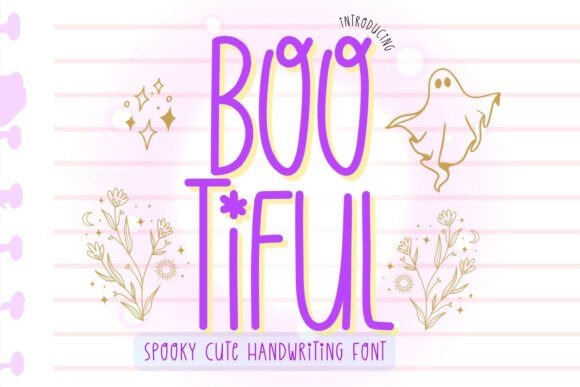
Unleash Your Spooky Creativity with Bootiful Font
Have you ever been working on a creative project, pouring your heart and soul into it, only to feel like something’s missing? Maybe you’re designing a Halloween invitation, crafting a digital journal page, or even planning a spooky-themed party. Whatever the project, I’m sure you’ve wished for the perfect font to bring it all together.
Enter Bootiful Font – a gorgeous, handwritten font that’s as elegant as it is spooky. This font is designed to add a touch of whimsy and charm to your creations, making it perfect for a wide range of projects, from Halloween decorations to digital planners and scrapbooking. With its tall, graceful letters and multilingual support, Bootiful Font is a must-have for crafters, teachers, and small business owners looking to add a little extra magic to their designs.
Bootiful Font Key Features
- Unique Characteristics: Bootiful Font features a unique blend of modern and vintage elements, making it perfect for creating a distinctive visual identity.
Bootiful Font Review
I recently had the chance to work with the “Bootiful Font” and I must say it’s a mixed bag. ✨ Here are the things that work well:
- The font is highly customizable, with a wide range of styles and sizes available.
- It’s incredibly easy to use, even for designers who are new to typography.
- The font is highly legible, making it perfect for body text and other content-heavy applications.
- The font also includes a range of international characters and symbols, making it a great choice for global projects.
However, there are also some limitations to consider: ⚠️
- The font may not be as stylish or attention-grabbing as some other options on the market.
- It may not be the best choice for titles or headlines, where a more dramatic font is often preferred.
- The font can look a bit generic or bland in certain contexts, particularly when used in large blocks of text.
Overall, I’d say the “Bootiful Font” is a solid, if unremarkable, choice for designers. While it’s not the most exciting font out there, it gets the job done and is easy to work with. If you’re looking for a reliable, no-frills font for your next project, the “Bootiful Font” might be worth considering.
Tips for Getting the Most Out of Bootiful Font
Use Bootiful Font to add a touch of elegance and sophistication to your designs.
Combine Bootiful Font with other design elements, such as images and graphics, to create a visually appealing design.
Use Bootiful Font for:
Headings and titles
Body text
Logos and branding